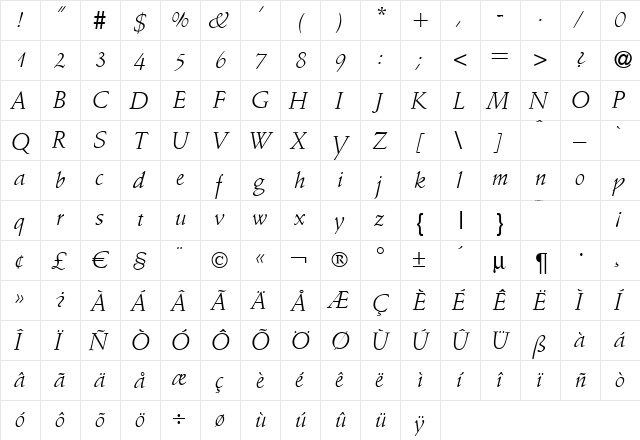
A770-Roman Regular
Design Context for A770-Roman Typeface
A770-Roman offers clean, dependable letterforms without strong stylistic allegiance, making it a practical choice for designers who need flexibility.
Pro Tip: Use A770-Roman in both headline and body roles to test its range before committing to a single application.